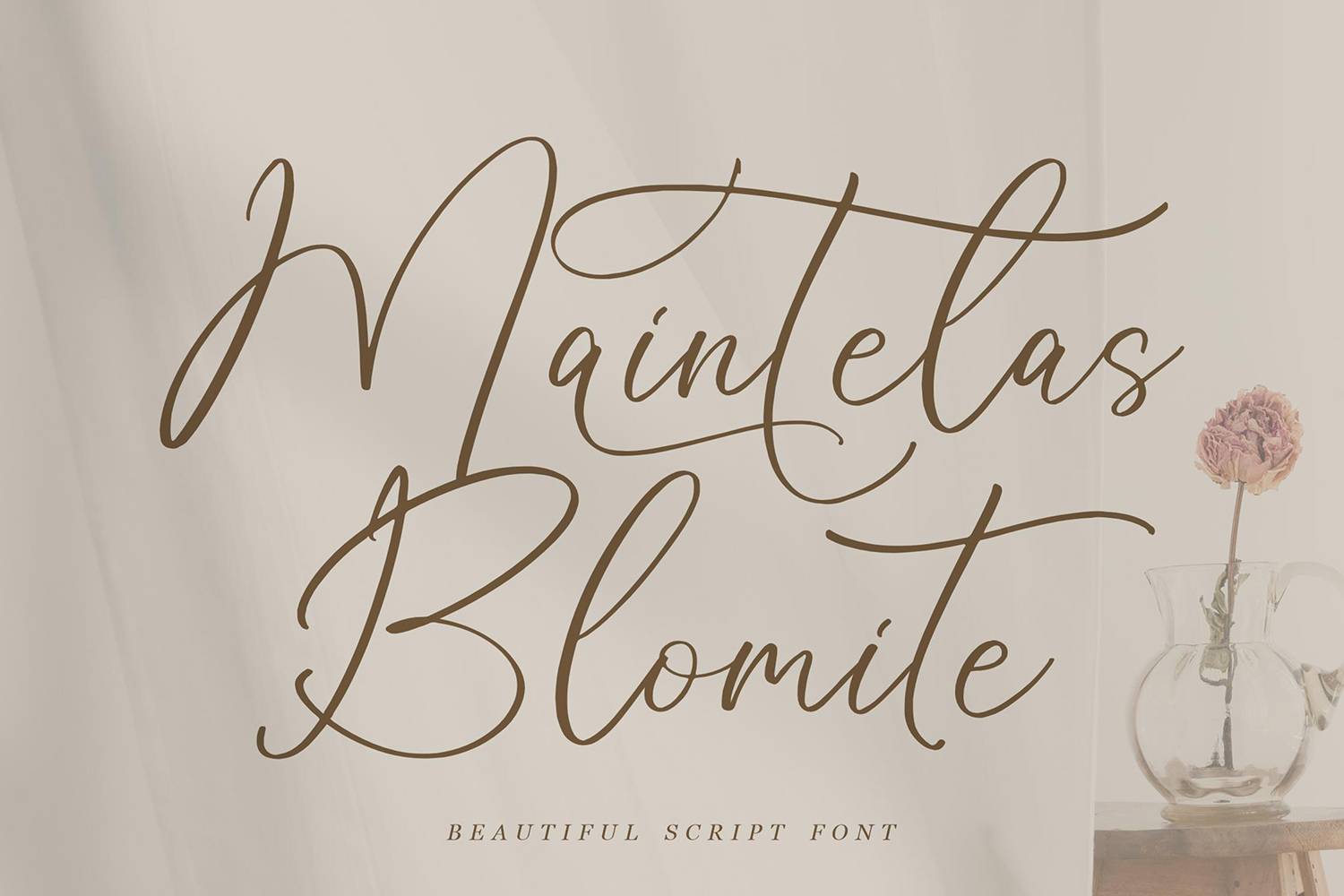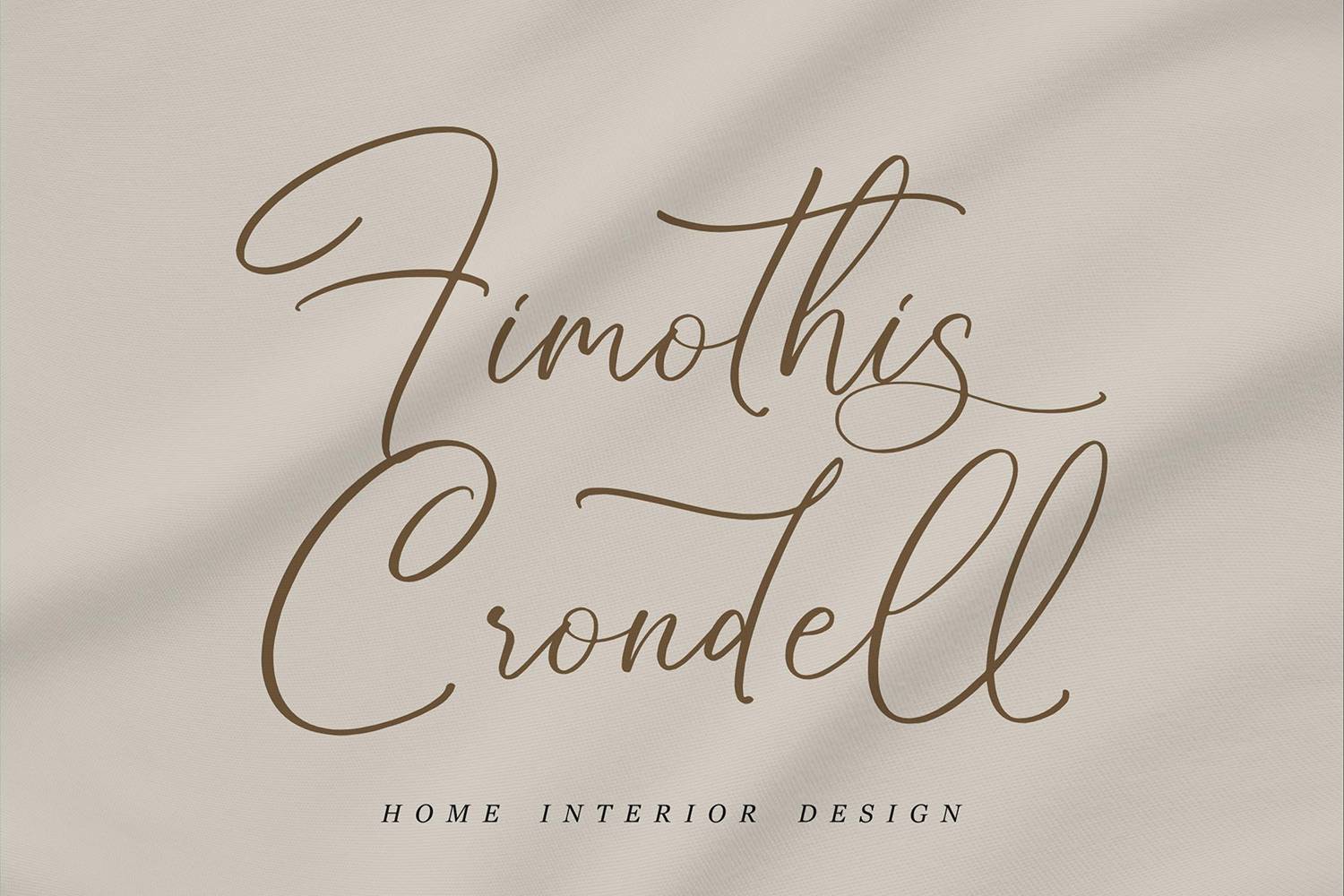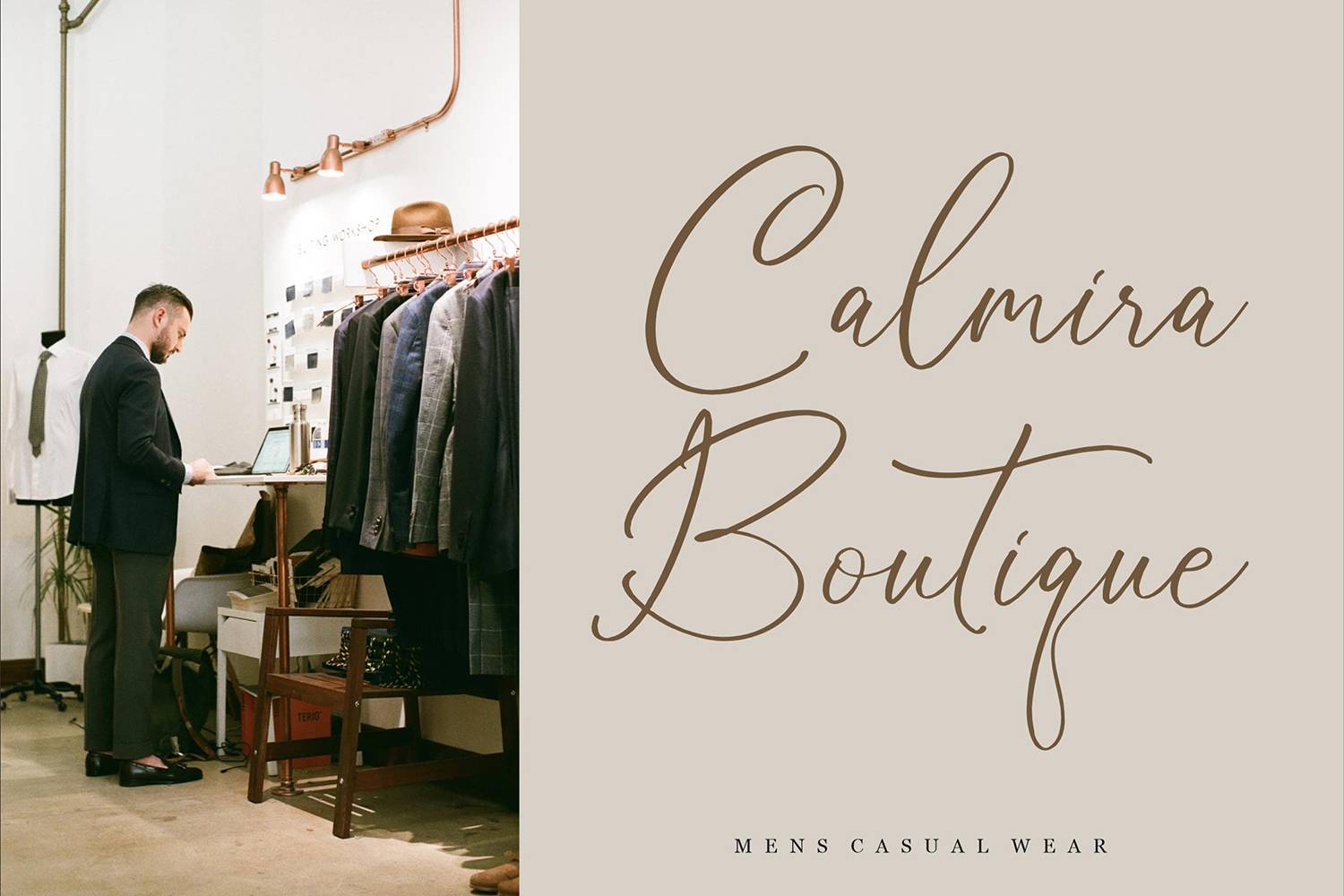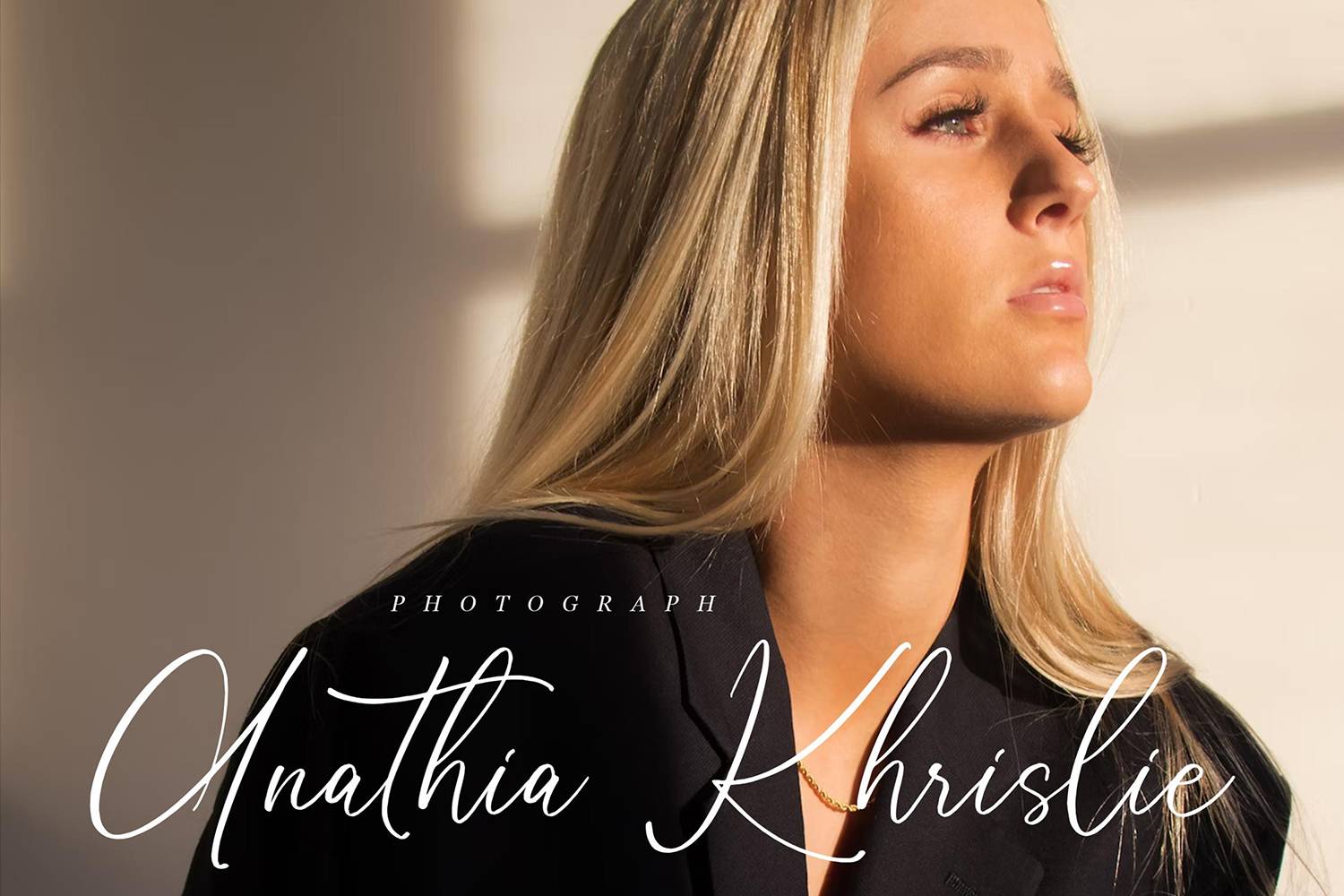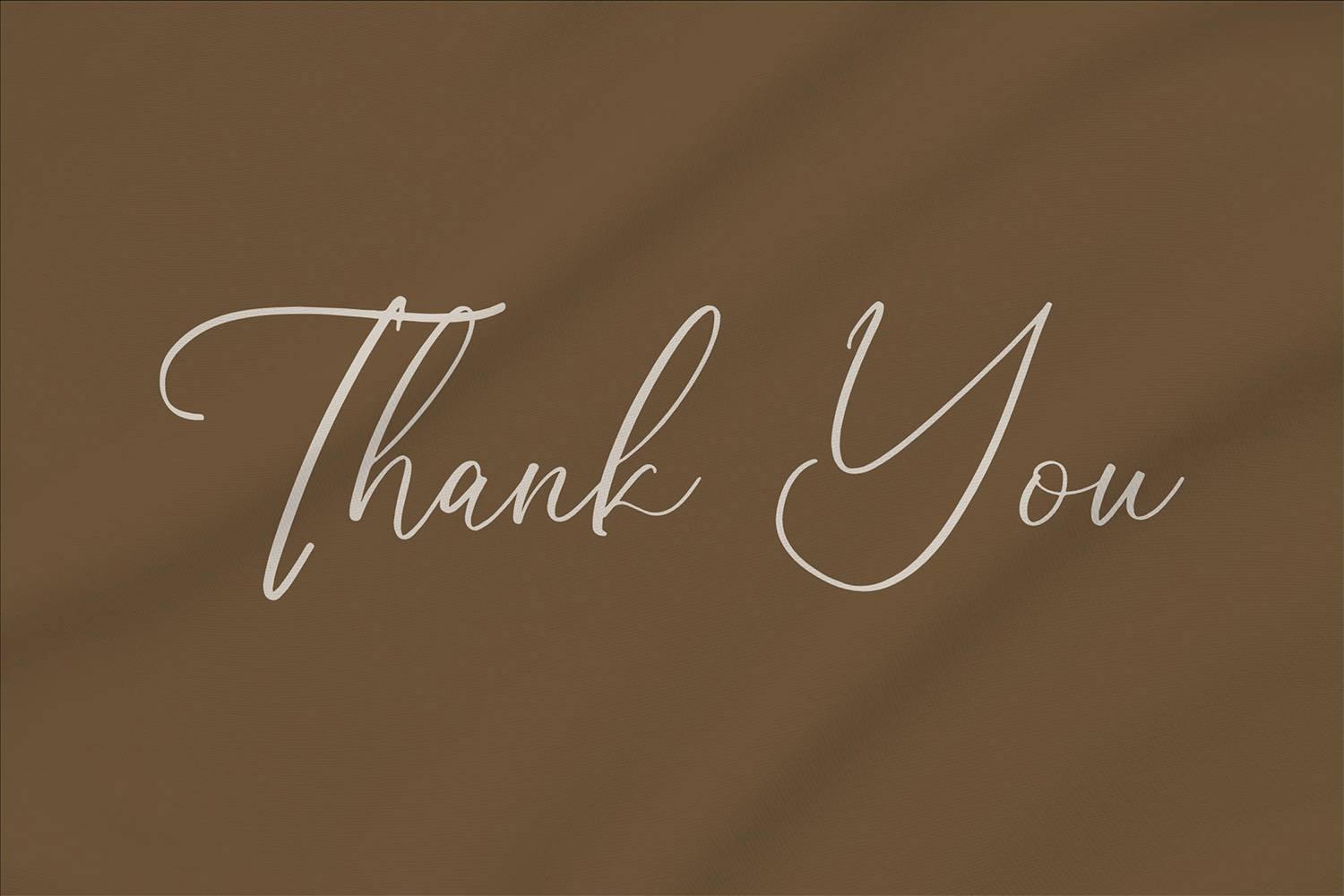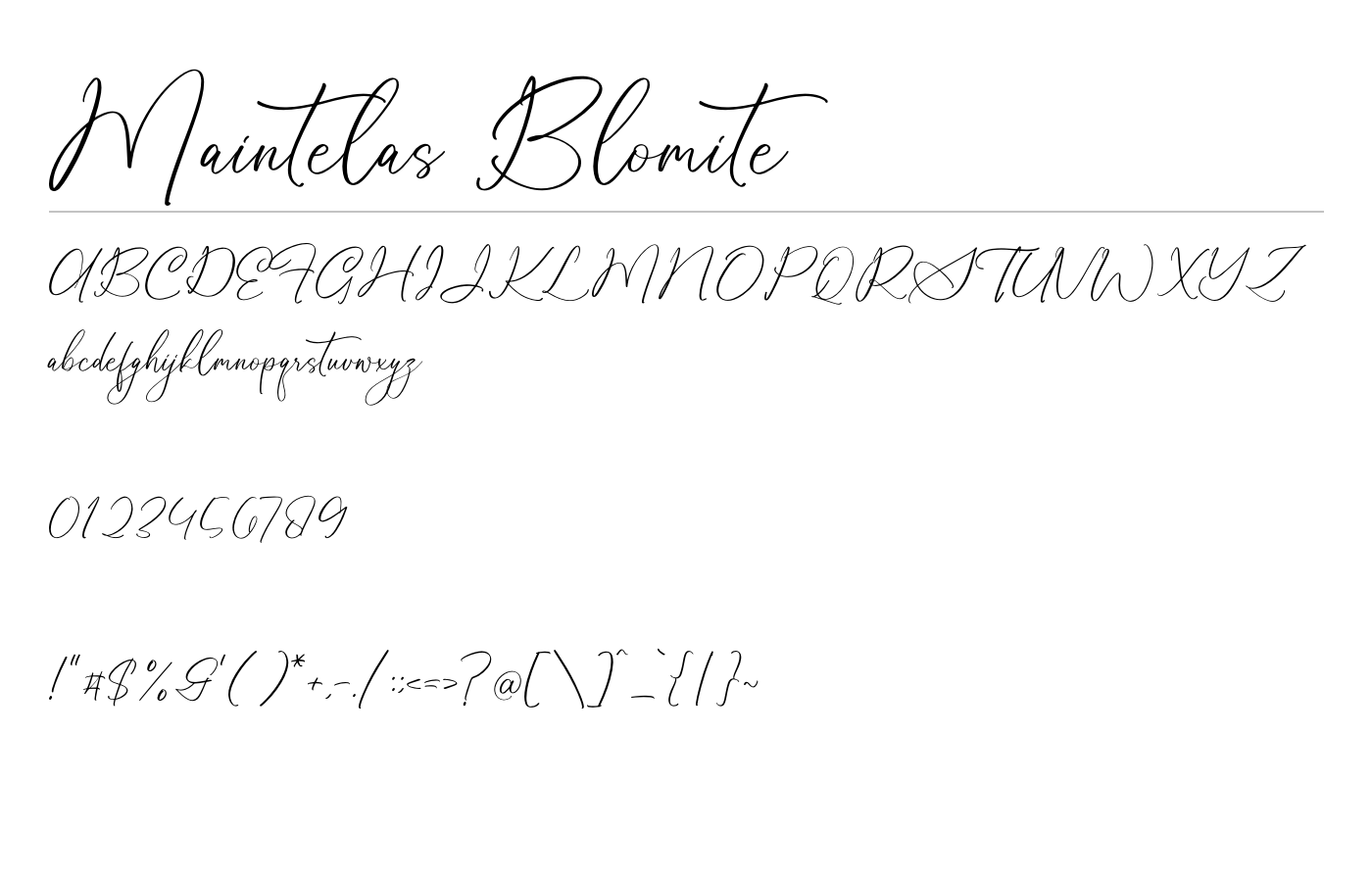
Maintelas Blomite is an elegant, delicate script font characterized by its flowing, thin strokes and sophisticated calligraphic style. With its graceful, airy letterforms and subtle flourishes, it conveys a refined, luxurious feel perfect for wedding invitations, branding, and other designs requiring a touch of elegance and femininity. This font works beautifully for decorative headlines and artistic projects where a sense of charm and high-end appeal is desired.
Maintelas Blomite Font
About Maintelas Blomite Font